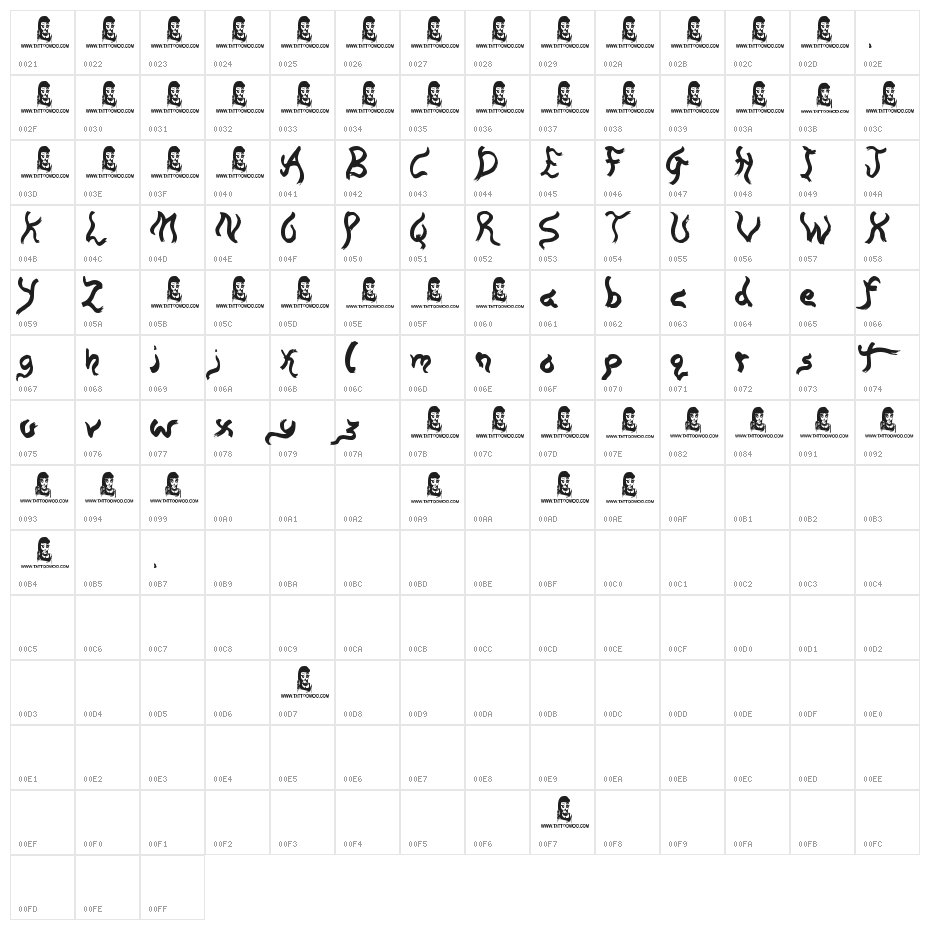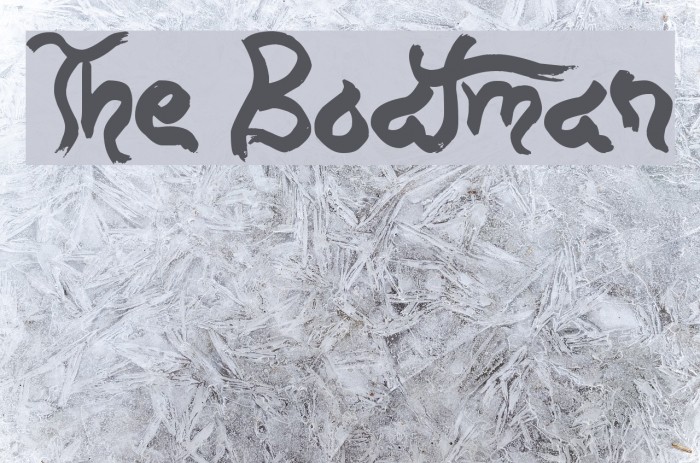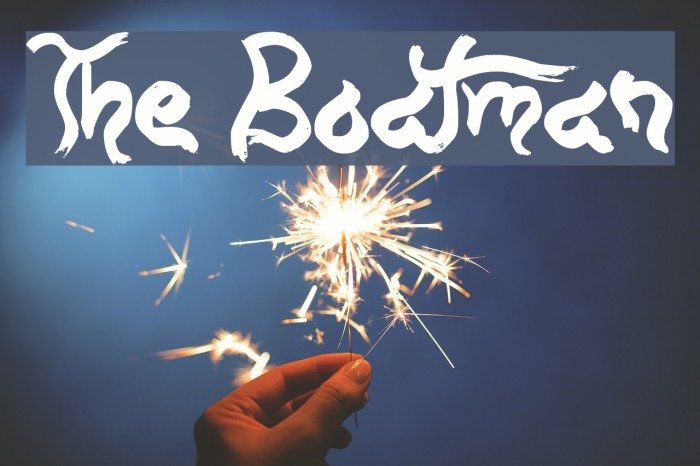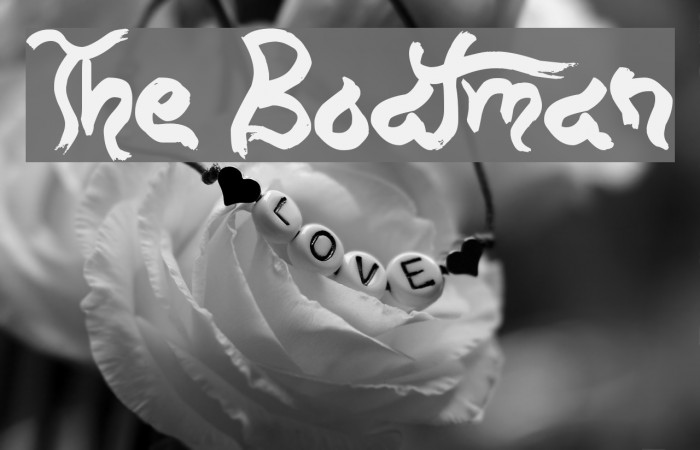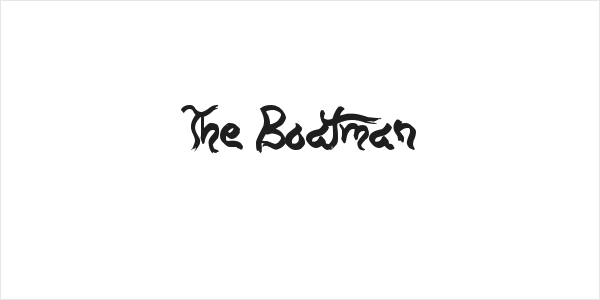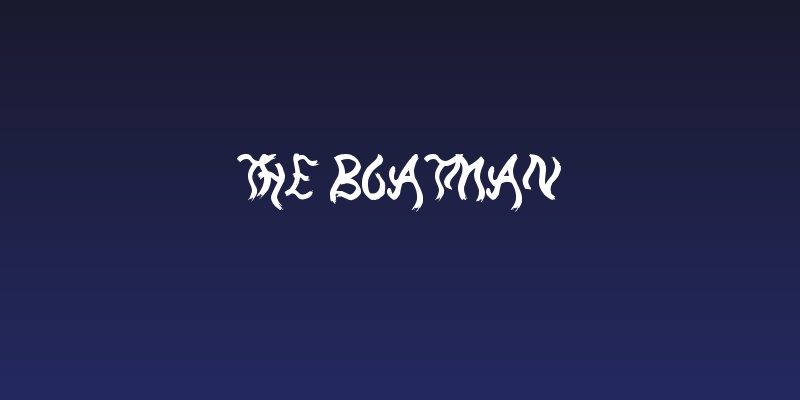
The Boatman Font
The Boatman Description
This font features a bold and expressive style, reminiscent of brush strokes with a dynamic and fluid appearance. The characters have a hand-drawn quality, with irregular edges and varying thickness that create a sense of movement and energy. The uppercase and lowercase letters maintain a consistent artistic flair, while the numbers and special characters follow the same stylistic approach. This font's unique design makes it stand out, offering a dramatic and artistic touch to any project.
| Use Case | Headlines, Logos, Artistic projects |
| Proposed Projects | Ideal for artistic projects, posters, album covers, and branding that requires a bold and expressive touch. |